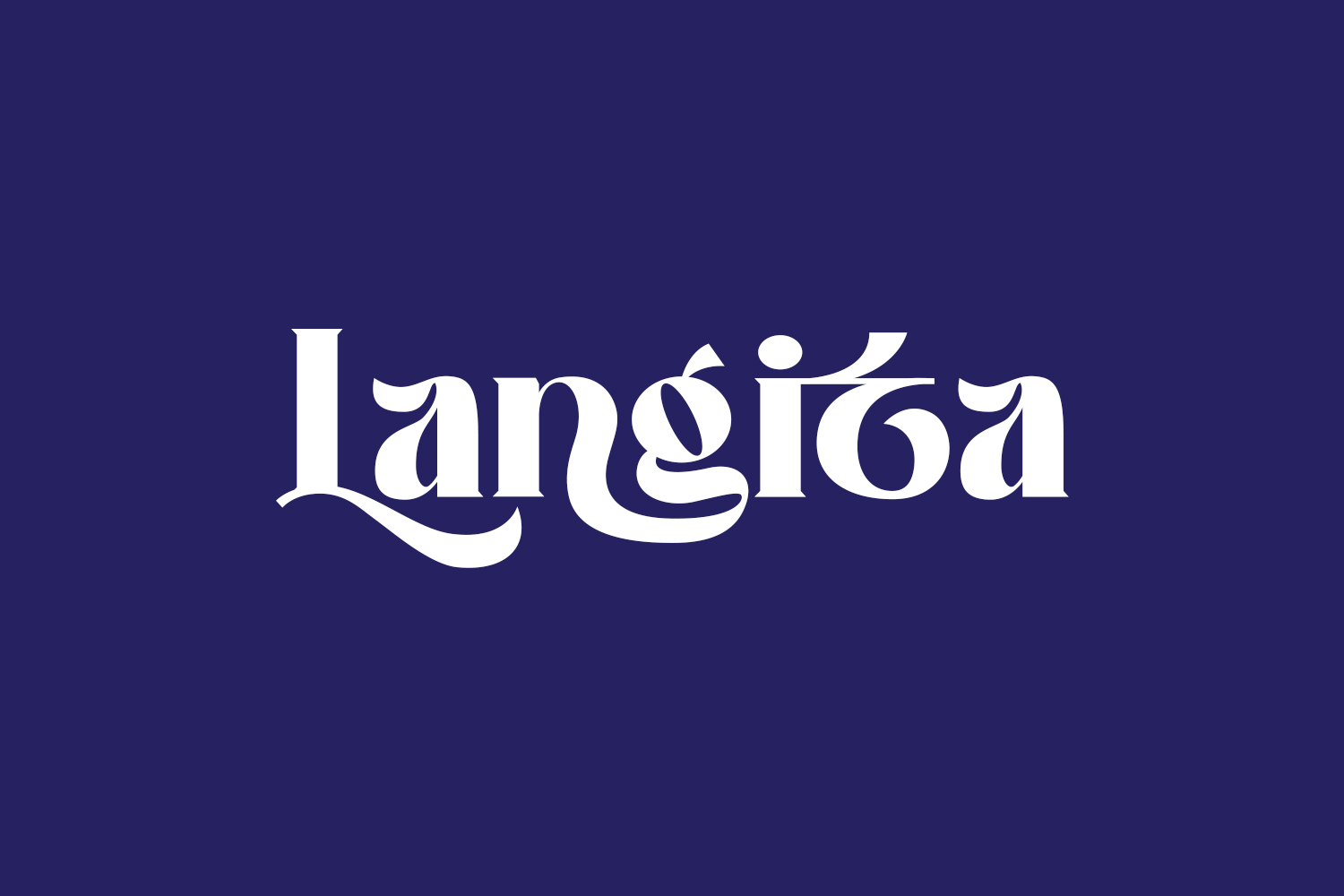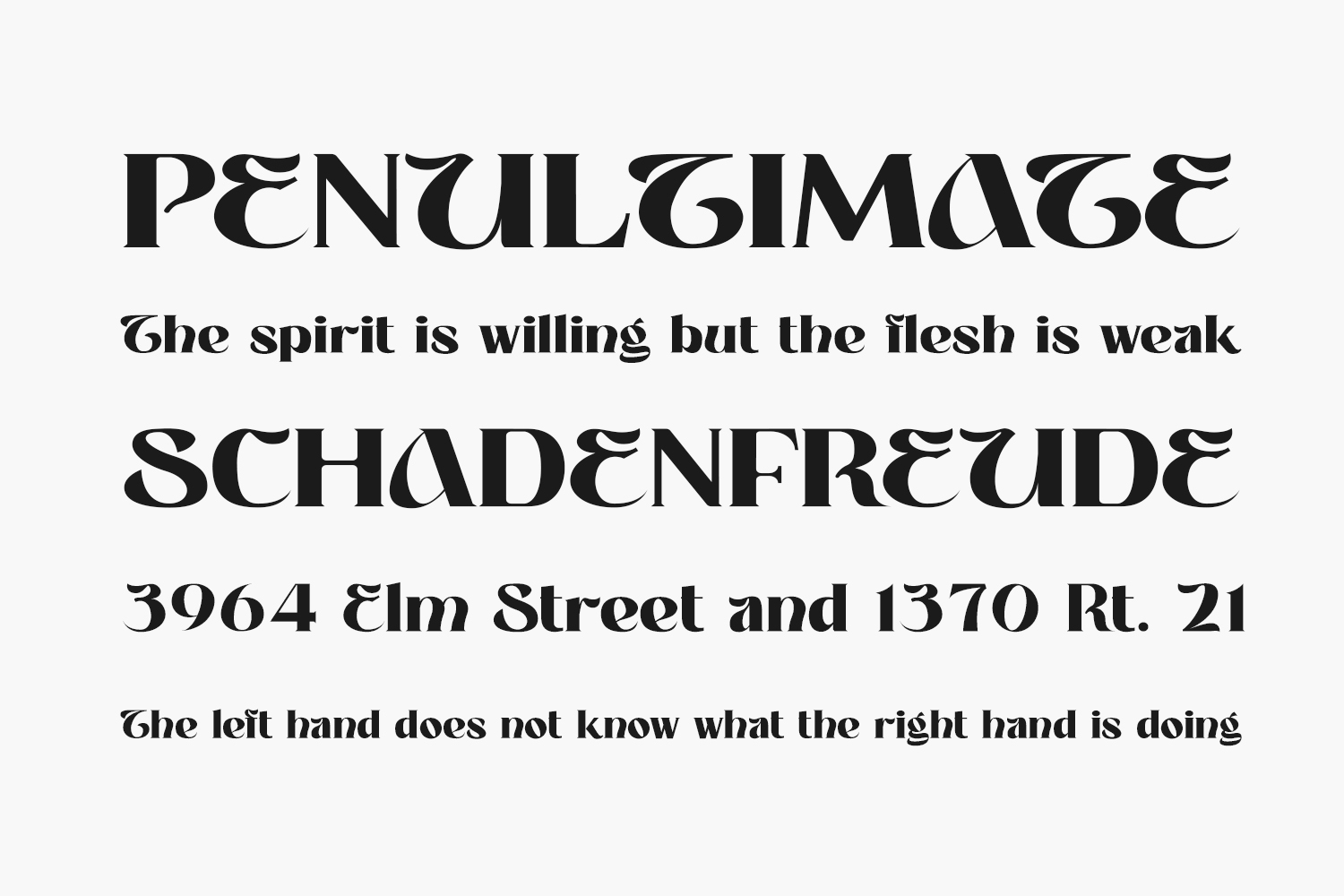
Langita Free Font is a type of font that is designed to give a vintage or retro look to your designs. The font features a bold, blocky style with a unique texture and appearance that is perfect for creating eye-catching headlines and titles.
The Langita font includes uppercase and lowercase letters, as well as punctuation and special characters, allowing for a wide range of design possibilities. The letters are carefully crafted with a rough texture and distressed edges, giving them a vintage and worn look that adds character to your designs. Langita Free Font is free for personal use only. Please purchase the full version for commercial use.
Designed by Mocha Frappuccino